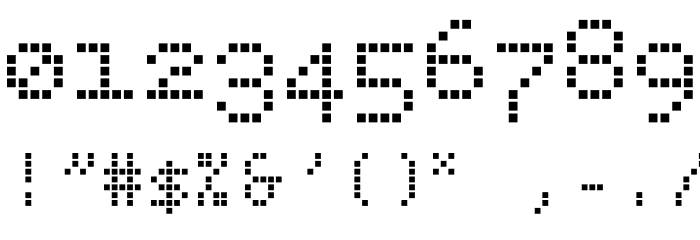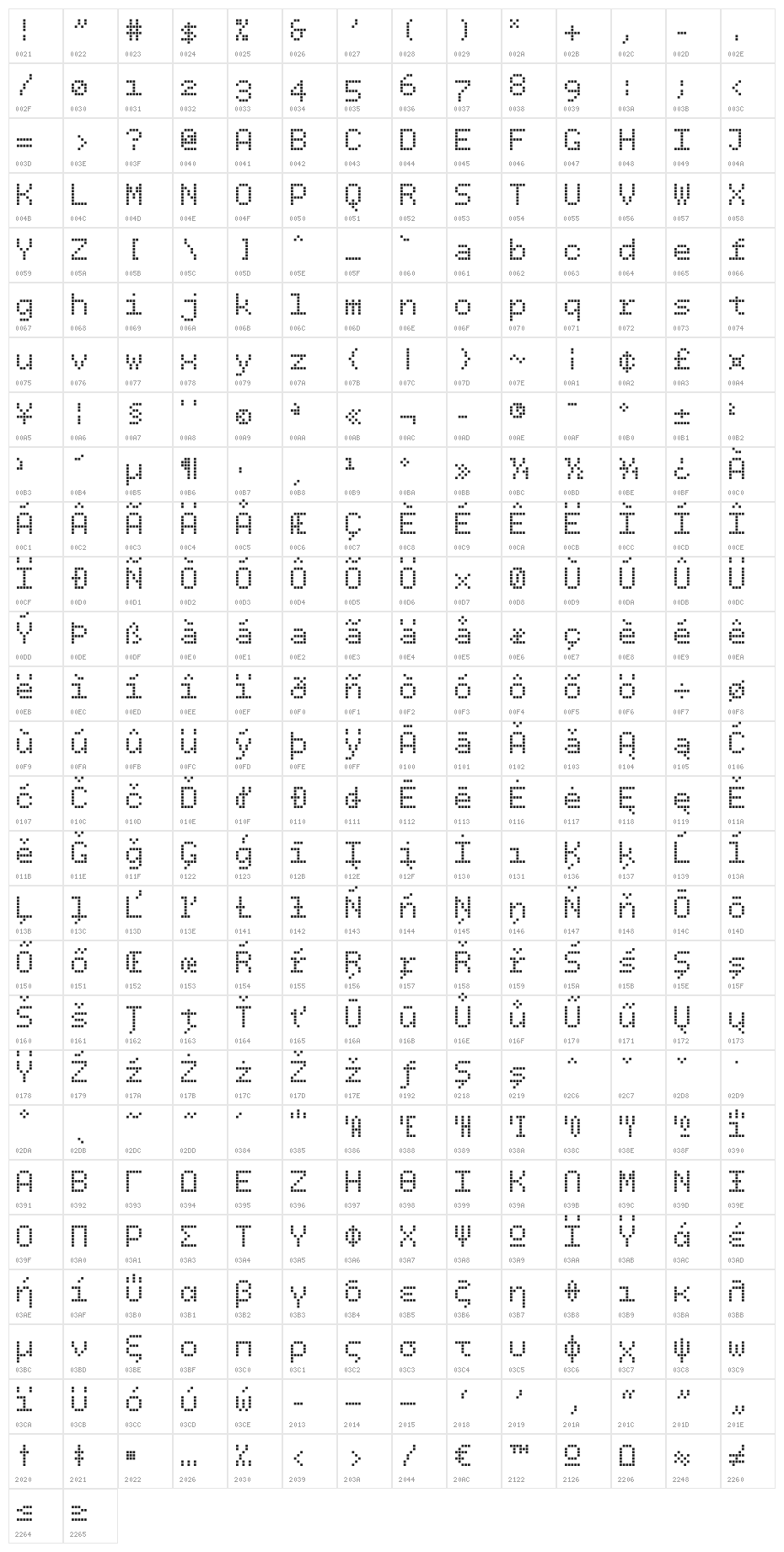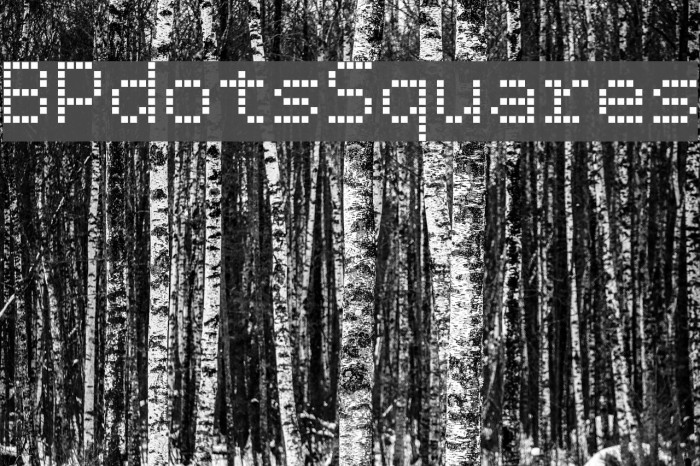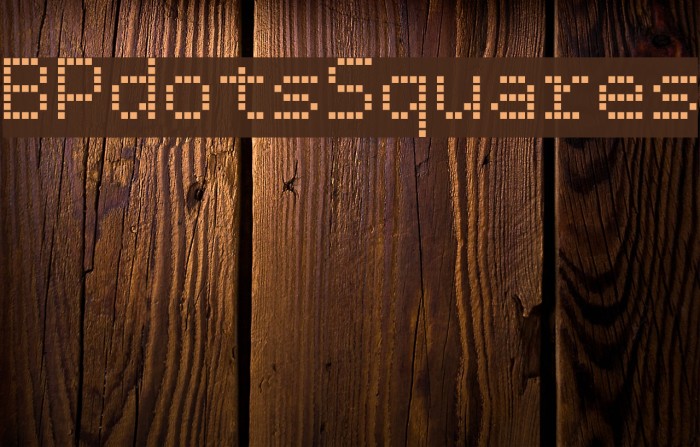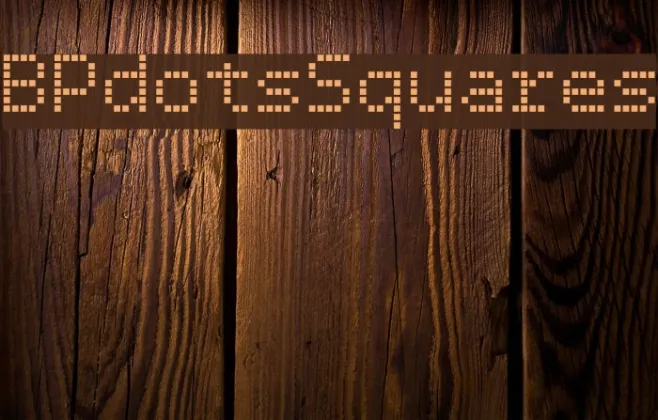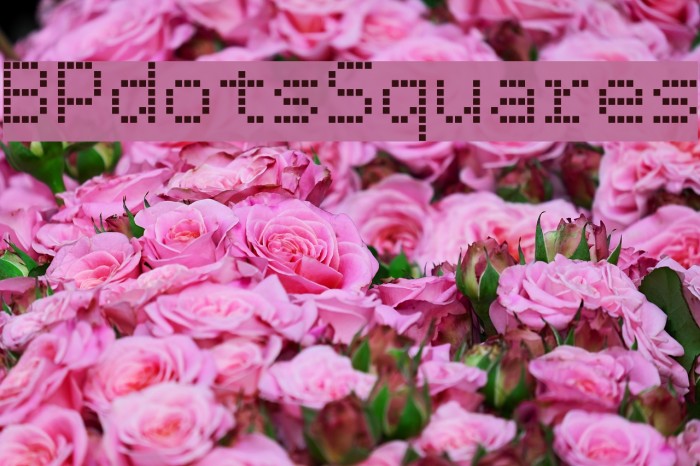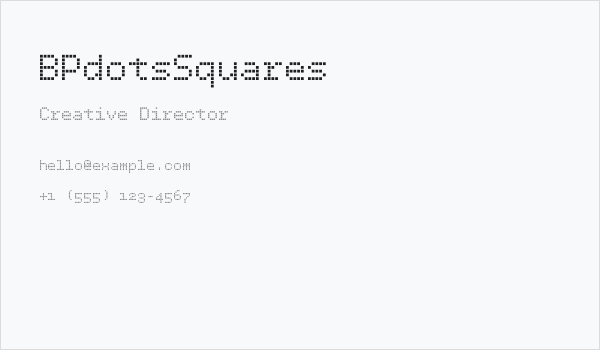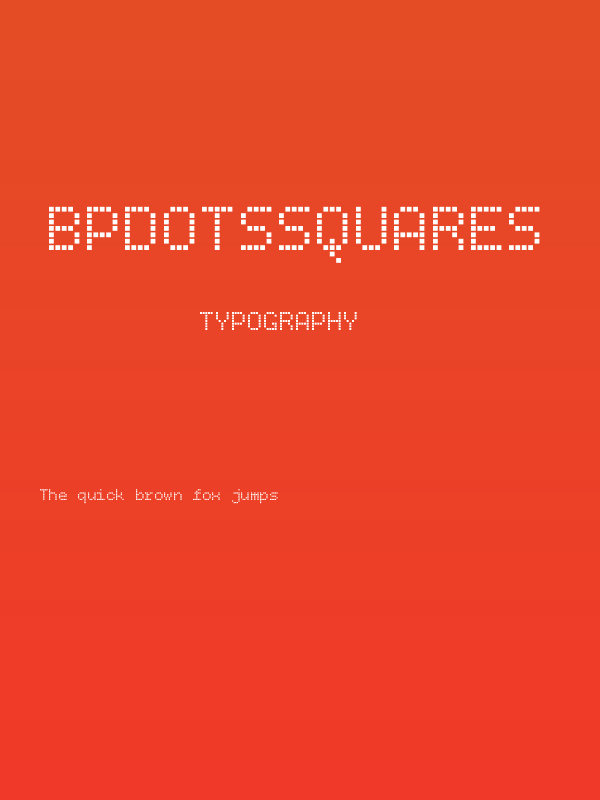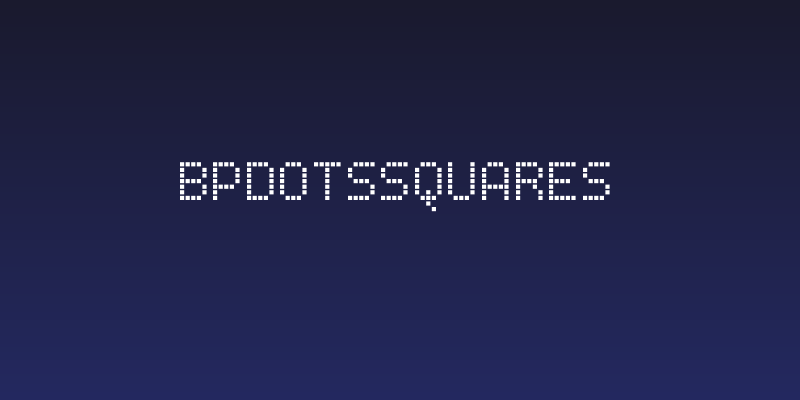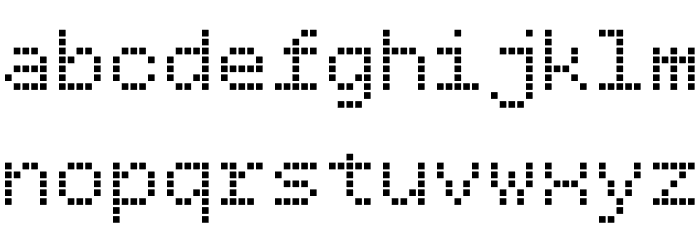
BPdotsSquares Font
BPdotsSquares Description
This font is a unique and modern take on digital typography, characterized by its use of small square dots to form each character. The design is reminiscent of early digital displays, giving it a retro-futuristic feel. Each letter and number is constructed with precision, maintaining uniformity and clarity despite the unconventional dot-based structure. The font is highly legible, with each character distinctly recognizable, making it suitable for both artistic and practical applications. Its geometric nature provides a clean and organized appearance, ideal for projects that require a modern yet nostalgic touch.
| Use Case | Logos, Headlines, Digital displays |
| Proposed Projects | Ideal for digital art, retro-themed designs, tech branding, and futuristic displays. |